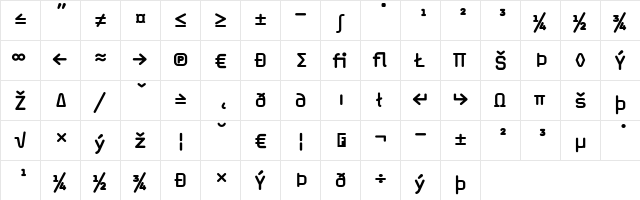
MagdaClean Bold Font Preview
MagdaClean Bold
MagdaClean Bold Font Details
| Foundry | Henning Krause, Critzler, . Published by FontShop International. FontFont Release |
Design Context for MagdaClean Typeface
MagdaClean takes a measured approach to typography — its balanced proportions and neutral character make it a reliable workhorse for both digital and print work. The heavy weight commands attention and anchors typographic hierarchies.